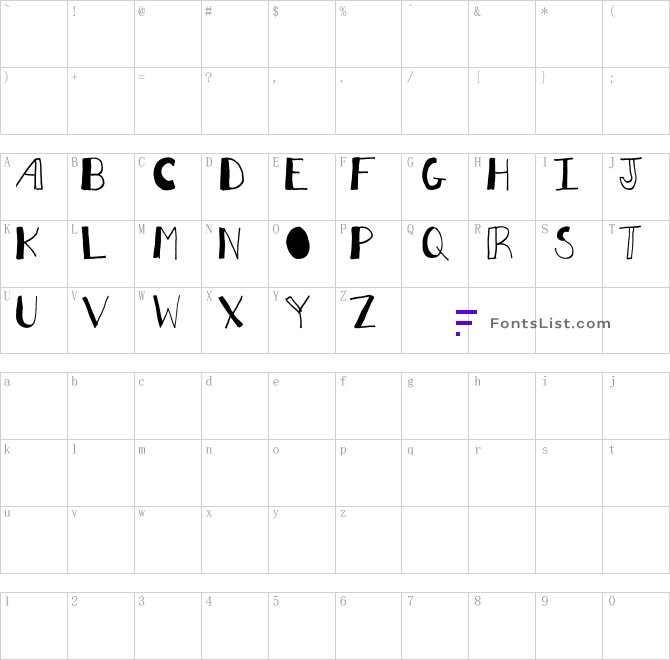
- Font Name:AEZno name
AEZ-no-name.ttf is a very beautiful artistic font, AEZ-no-name.ttf is widely used in the design and printing of various books and pictures,AEZ-no-name.ttf has a strong visual impact,AEZ-no-name.ttf is a commonly used font in newspapers, magazines and books, and is used in posters, e-commerce Poster design, store design, logo design, font design and other fields.AEZ-no-name.